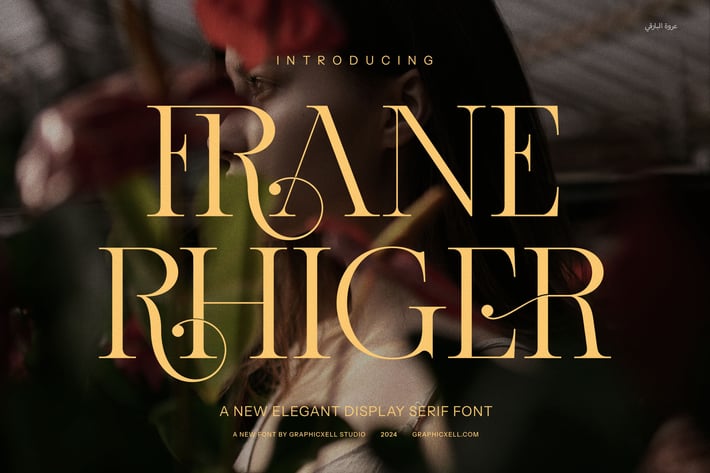
Frane Rhiger Elegant Serif Font
Frane Rhiger Elegant Serif Font is a beautifully crafted typeface that embodies modern sophistication and timeless elegance. With its exquisite ligatures and graceful alternate forms, this serif font is designed to make your projects stand out with unparalleled style. Each letter is thoughtfully balanced, blending clean lines with subtle details to create a font that feels both refined and approachable.
Perfect for luxury branding, high-end logos, and polished editorial layouts, Frane Rhiger is a versatile choice for designers seeking a font that exudes class and professionalism. Whether you're working on websites, product packaging, boutique branding, or magazine spreads, this typeface adapts effortlessly to any medium while maintaining its stunning visual appeal.
The font’s unique ligatures and alternates give it a customizable edge, allowing you to add a personal touch to your designs. Its elegant proportions and refined serifs make it equally suitable for bold headlines and sophisticated body text, ensuring your projects have a cohesive and harmonious look.
Frane Rhiger’s modern yet classic aesthetic makes it the perfect choice for industries such as fashion, lifestyle, hospitality, and gourmet food. Whether used for minimalist layouts or more elaborate compositions, this font delivers a sense of luxury and artistry that leaves a lasting impression.
Let Frane Rhiger Elegant Serif Font elevate your designs with its timeless charm and contemporary finesse. It’s more than just a typeface—it’s a statement of sophistication and creativity.
Perfect for luxury branding, high-end logos, and polished editorial layouts, Frane Rhiger is a versatile choice for designers seeking a font that exudes class and professionalism. Whether you're working on websites, product packaging, boutique branding, or magazine spreads, this typeface adapts effortlessly to any medium while maintaining its stunning visual appeal.
The font’s unique ligatures and alternates give it a customizable edge, allowing you to add a personal touch to your designs. Its elegant proportions and refined serifs make it equally suitable for bold headlines and sophisticated body text, ensuring your projects have a cohesive and harmonious look.
Frane Rhiger’s modern yet classic aesthetic makes it the perfect choice for industries such as fashion, lifestyle, hospitality, and gourmet food. Whether used for minimalist layouts or more elaborate compositions, this font delivers a sense of luxury and artistry that leaves a lasting impression.
Let Frane Rhiger Elegant Serif Font elevate your designs with its timeless charm and contemporary finesse. It’s more than just a typeface—it’s a statement of sophistication and creativity.